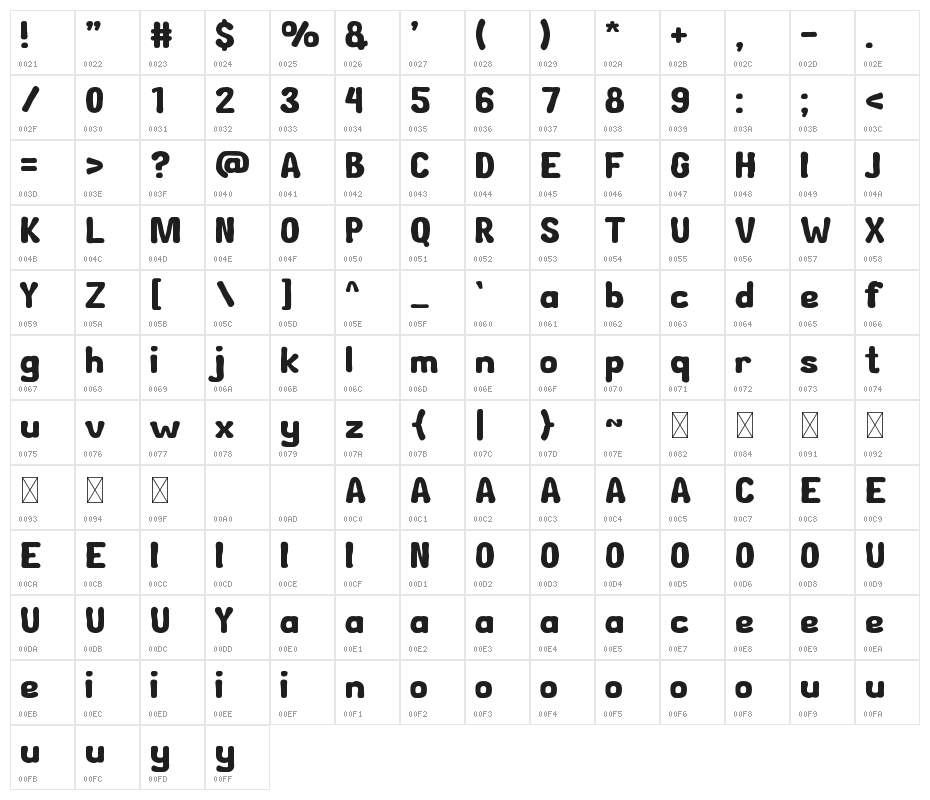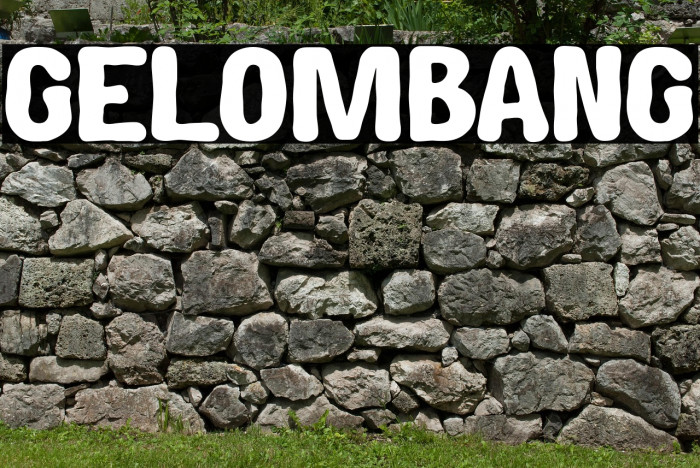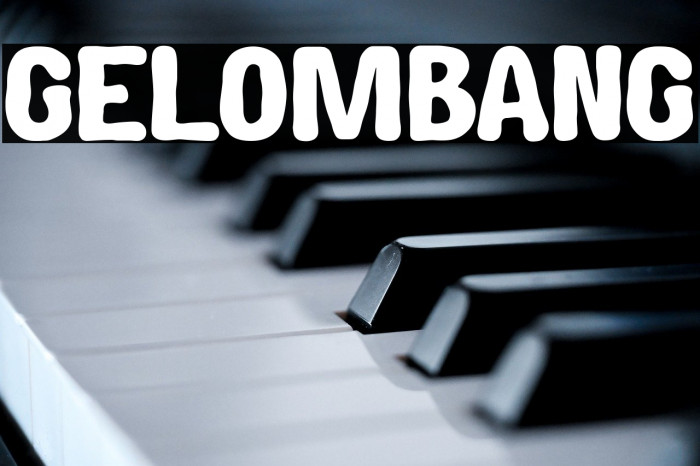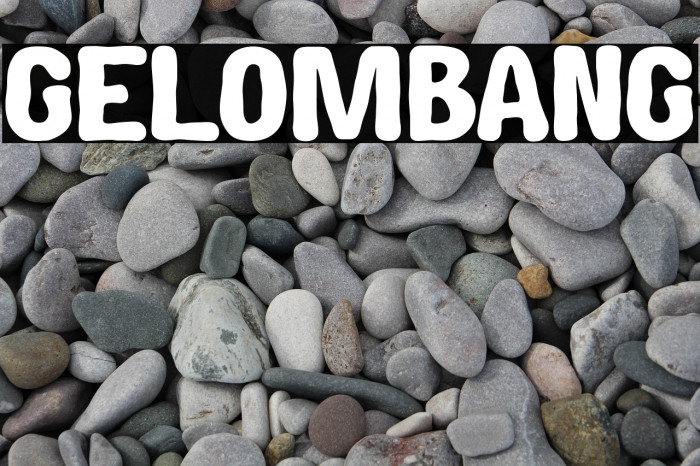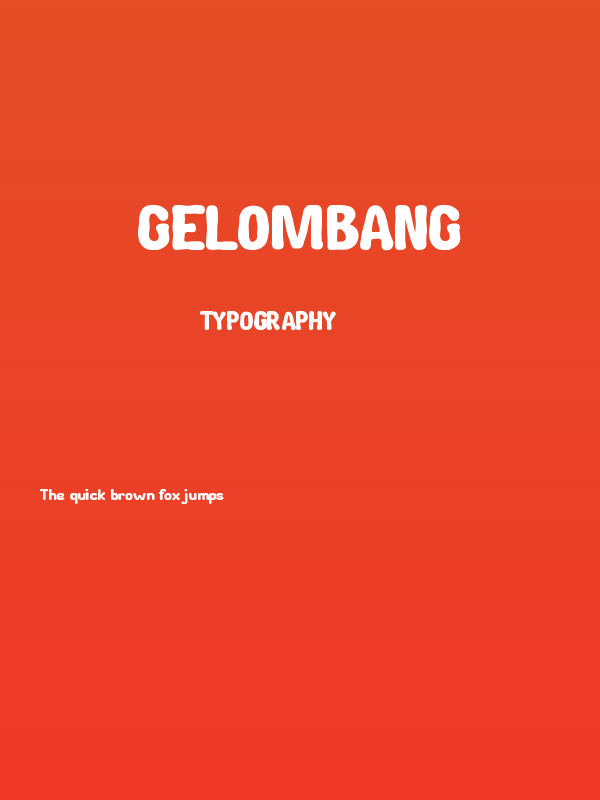
GELOMBANG Font
GELOMBANG Description
A bold, playful font with rounded edges and a casual, friendly appearance.
| Overall Style | Playful, Casual |
| Use Case | Headlines, Posters, Branding |
| Proposed Projects | Children's books, posters, playful branding. |